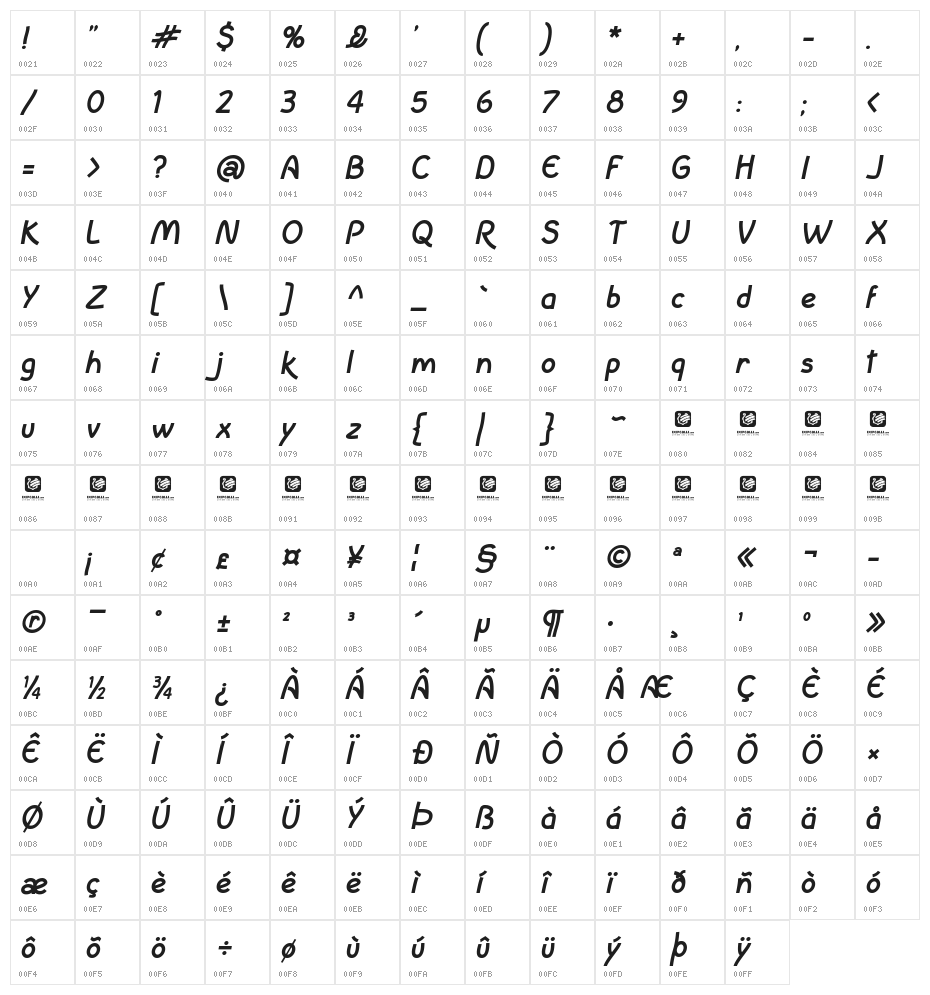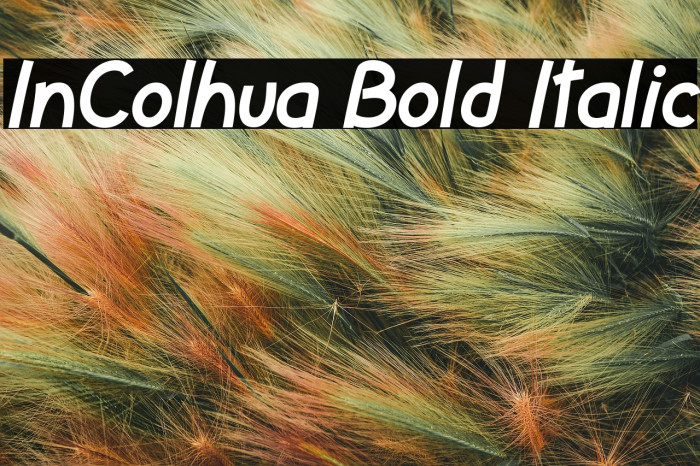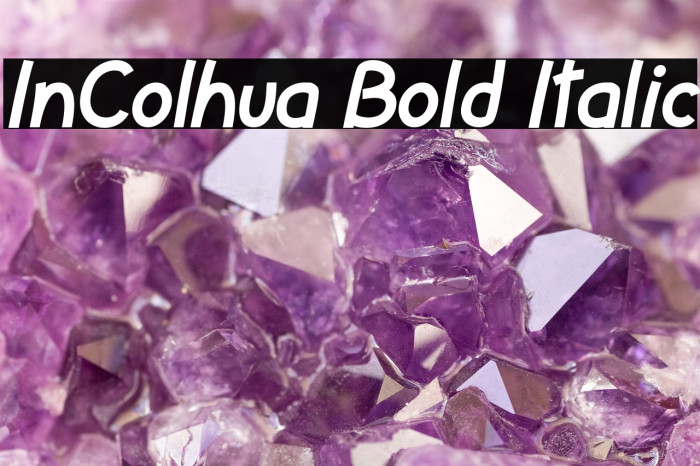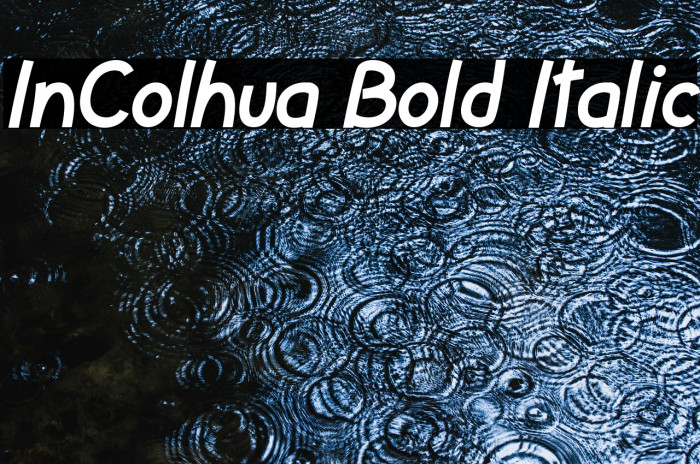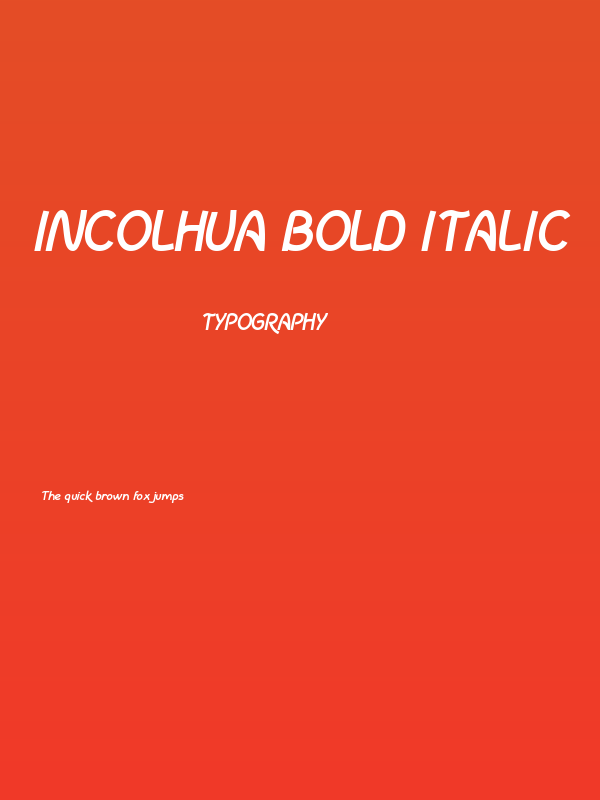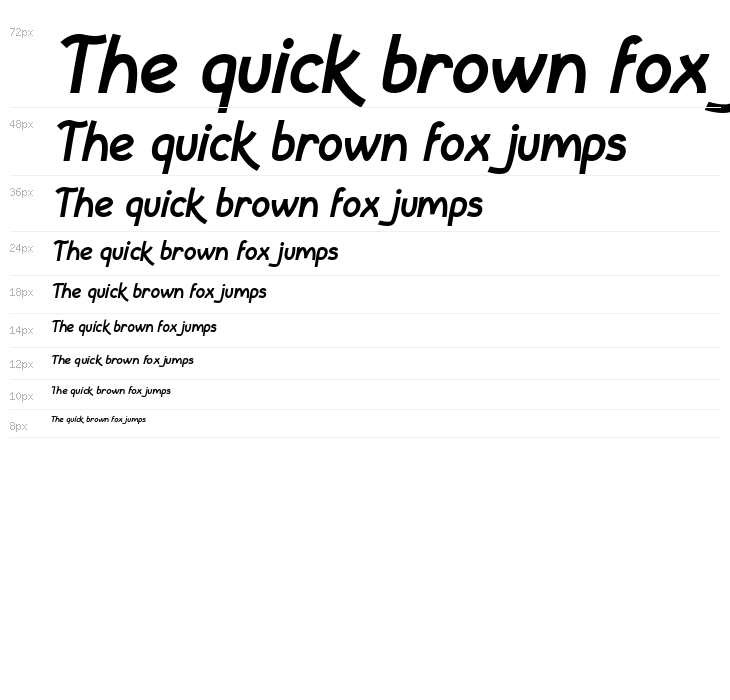
InColhua Bold Italic Font
InColhua Bold Italic Description
This font exhibits a bold and italicized style with a dynamic and energetic appearance. The characters are slightly slanted, giving a sense of movement and fluidity. The strokes are thick and consistent, contributing to a bold presence. The overall design is modern and playful, with a touch of informality. The letters are well-spaced, ensuring readability while maintaining a cohesive look. The numbers and special characters follow the same stylistic approach, making them blend seamlessly with the alphabet. This font is ideal for projects that require a bold statement and a contemporary feel.